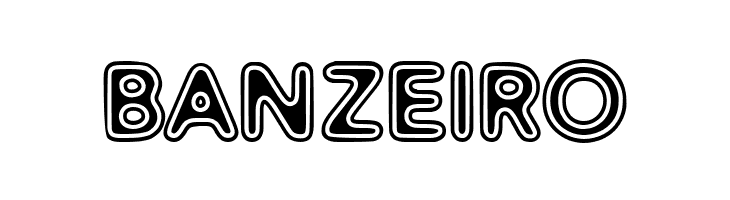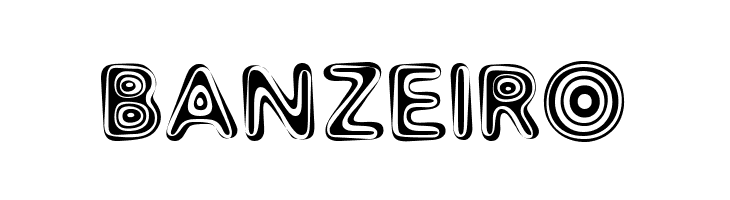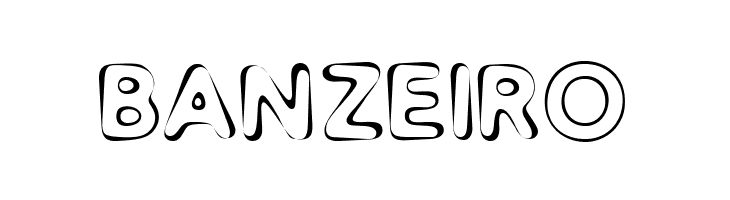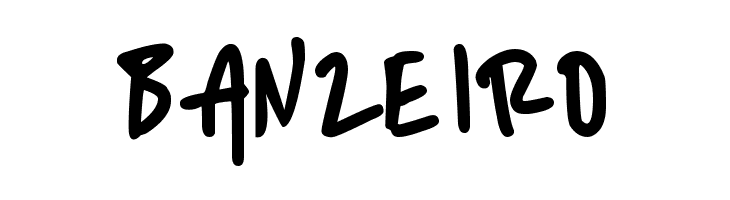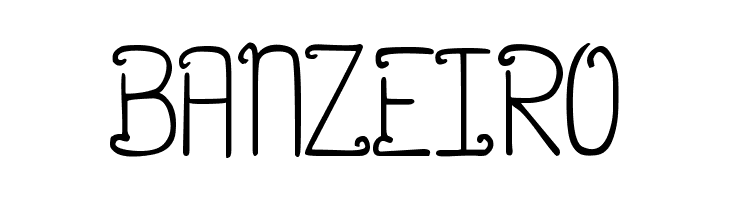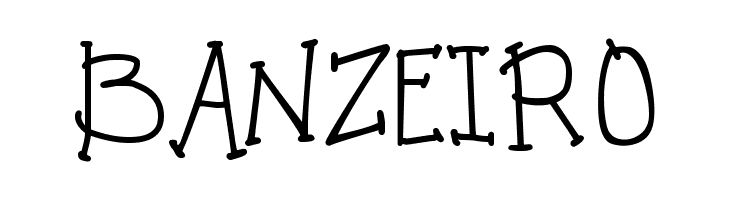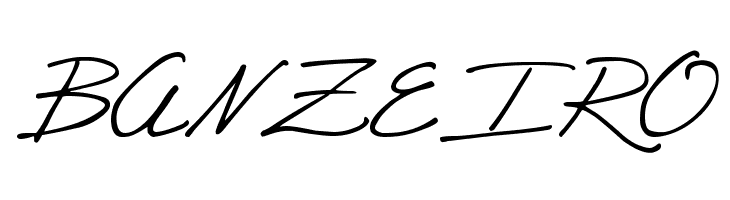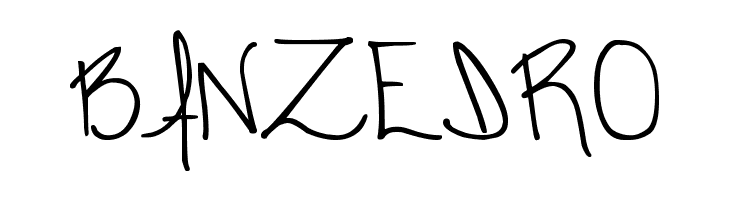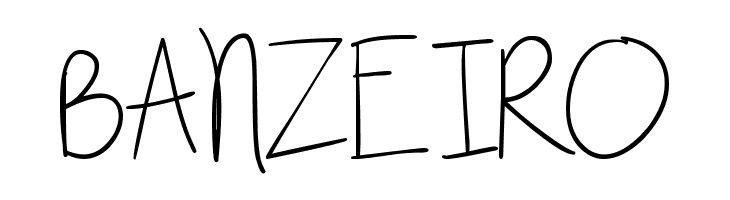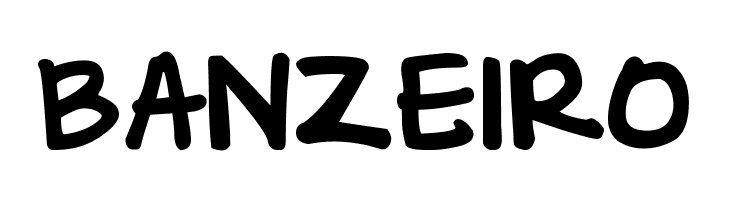
• Distro II Liquorice
• Distro II Squidgey
• Distro II Toasted
• Distro II Vinyl
• DistroII-Bats
A playful collection of bold, easily recognizable symbols and icons.
• DJB 2CUTE4U
A playful, whimsical font with bold outlines and handwritten script elements.
• DJB Angel Baby
A playful, whimsical handwritten font with loose, flowing strokes.
• DJB Another Mandy
A playful, bold handwritten font with a casual and dynamic style.
• DJB Bean Pole
An ultra-thin, elongated font with a playful and modern aesthetic.
• DJB BLUEPRINT
A bold, playful handwritten font with rounded, informal strokes.
• DJB CASSANDRA
A playful, informal handwritten font with a whimsical and friendly style.
• DJB CLyleRun
A playful, casual handwritten font with tall, narrow letters and whimsical strokes.
• DJB CLyleRun2
A playful, handwritten font with tall, narrow letters and thin strokes.
• DJB Crazy Goofy Cool
A playful, hand-drawn font with quirky, irregular characters.
• DJB CRIS script
A casual script font with fluid, handwritten strokes and a natural, elegant style.
• DJB CURLIE WURLIE
A whimsical and decorative font with playful curls and swirls.
• DJB Doodlie Beans
A whimsical and decorative font with playful, unique letterforms.
• DJB Emilys Garden
A whimsical, floral-themed decorative font with playful, curly lines.
• DJB Geeks Who Wear Glasses
A playful, handwritten-style font with rounded, casual characters.
• DJB Gimme Space
A playful, handwritten font with whimsical character details.
• DJB How Cute Am I
A playful handwritten font with a casual, friendly appearance.